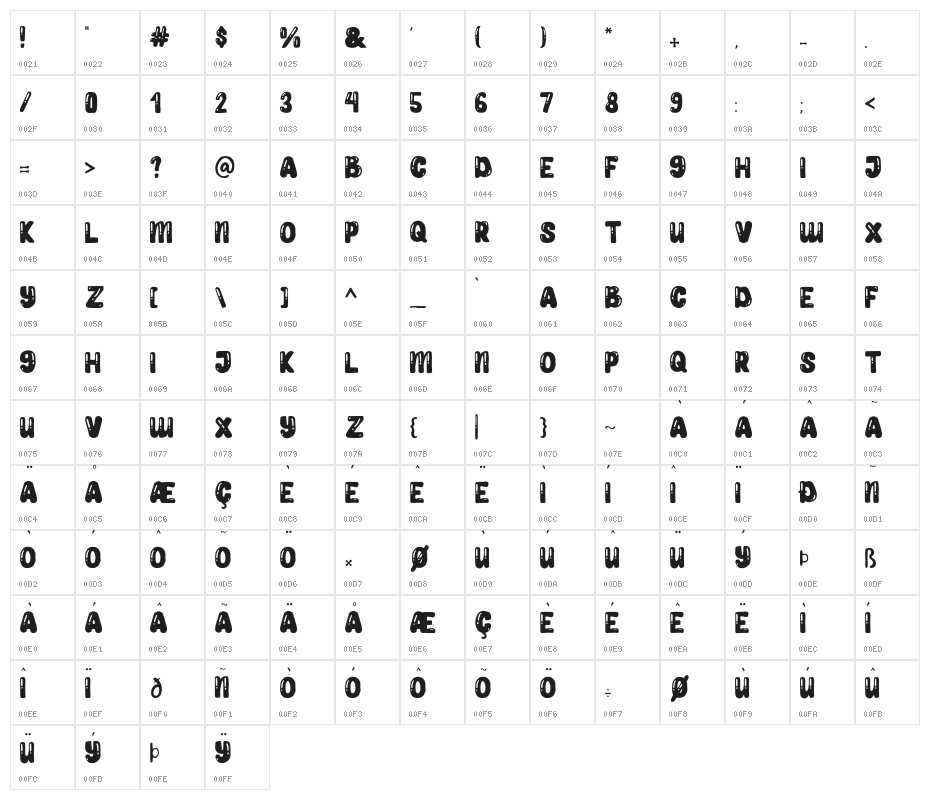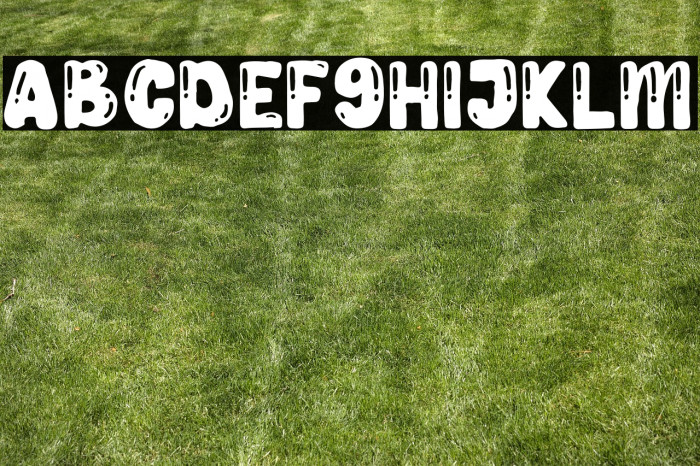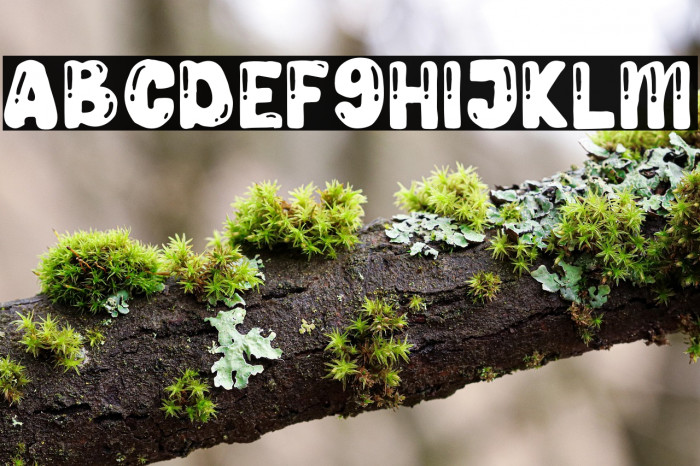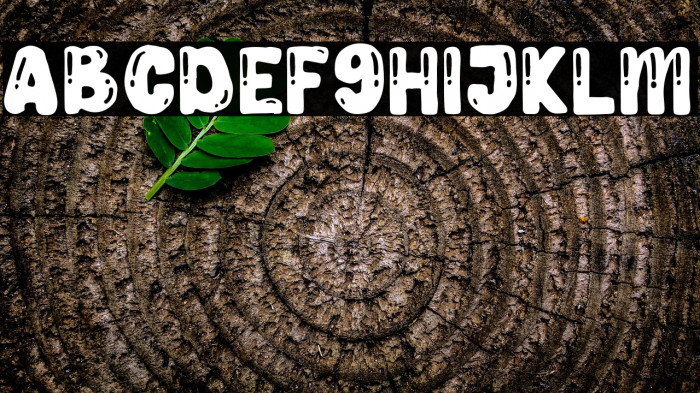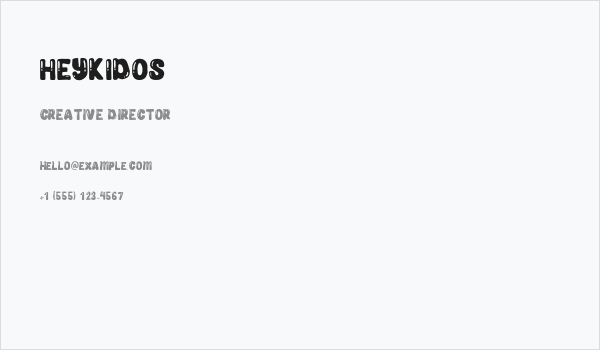
HeyKidos Font
HeyKidos Description
This playful and bold font features a chunky, rounded design with a whimsical touch. Each character is adorned with small, irregular cutouts that add a sense of fun and creativity. The letters are uniformly bold, with a consistent thickness that gives the font a strong presence. The style is reminiscent of hand-drawn or doodle art, making it perfect for projects that require a lively and informal vibe. The numbers and special characters maintain the same playful aesthetic, ensuring a cohesive look across all text elements.